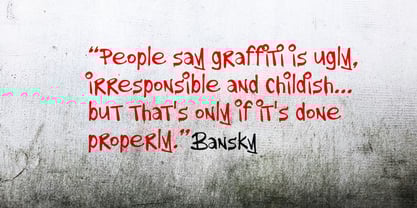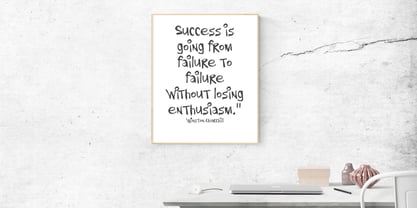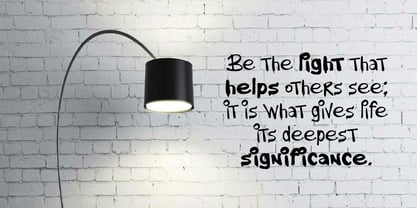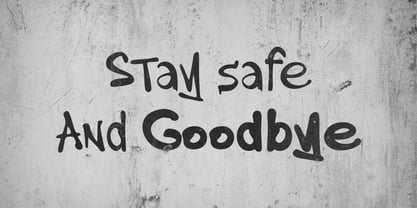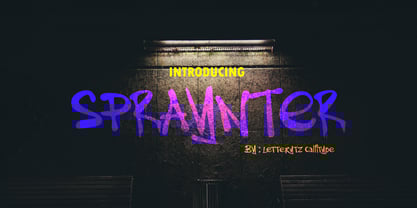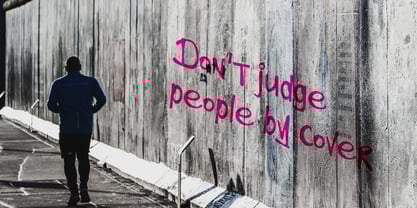
Spraynter
by Letterytz CalliType
The Spraynter Font Family was designed by Wahyu Eka Prasetya, Dian Angga Marytama and published by Letterytz CalliType. Spraynter contains 2 styles and family package options. More about this family
Spraynter - Regular & Bold
by LetterRytz Callitype
Bring street energy and hand-crafted spirit into your designs with Spraynter
Inspired by graffiti culture, bold marker tags, and urban wall art, Spraynter Regular and Spraynter Bold deliver raw, expressive letterforms full of attitude and spontaneity. Each character is uniquely hand-drawn to maintain an authentic, organic feel — perfect for branding, poster designs, album covers, event promotions, apparel, and anything that craves a rebellious edge.
Spraynter Regular offers a cleaner but still wild vibe, ideal for body text or lighter headlines, while Spraynter Bold turns up the volume for maximum visual impact with heavier strokes and tighter details. Both styles include full uppercase, lowercase, numbers, punctuation, symbols, and a curated set of alternates and swashes to keep your typography feeling fresh and dynamic.
If you’re looking to inject some urban soul into your projects, Spraynter is your go-to weapon!
Features:
• Uppercase & Lowercase
• Numbers & Punctuation
• Multilingual Support
• Organic, Hand-drawn Texture
• Perfect for Graffiti, Streetwear, Posters, Branding, and Music Projects